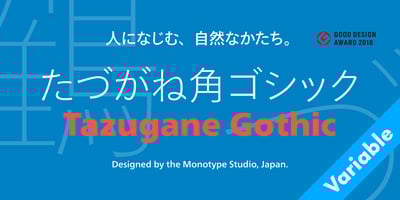
Tazugane Gothic Variable
Tazugane Gothic Variable font
Tazugane Gothic Variable Font Family was designed by Akira Kobayashi, Monotype Design Studio, Kazuhiro Yamada, Ryota Doi and published by Monotype. Tazugane Gothic Variable contains 1 styles and family package options. Tazugane Gothic is a Japanese typeface family developed by the Monotype Studio. The project began as a companion Japanese typeface for the famous Neue Frutiger. The goal for Tazugane Gothic was a humanist sans serif face with a clear and legible forms, and nearly unlimited applicability in a broad range of uses, from signage and publishing to advertising and websites. The Tazugane Gothic font family is extremely versatile with ten different weights from Ultra Light to Extra Black.